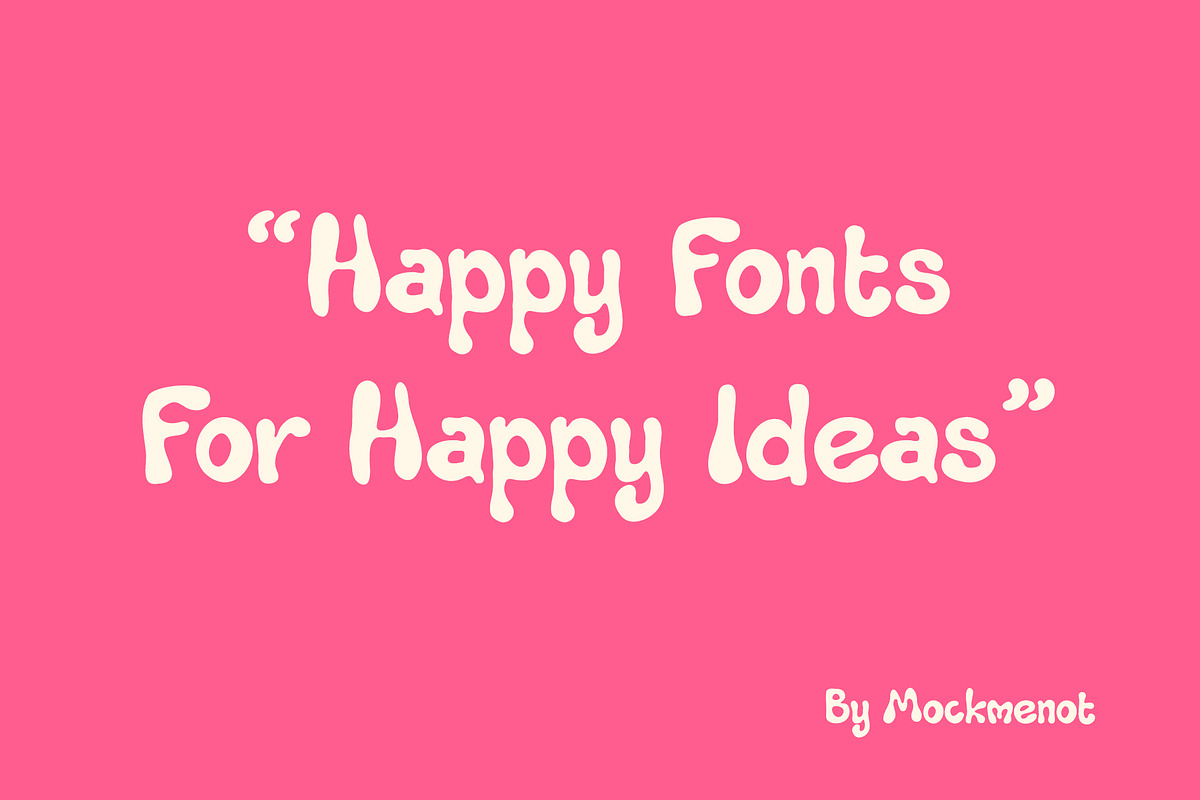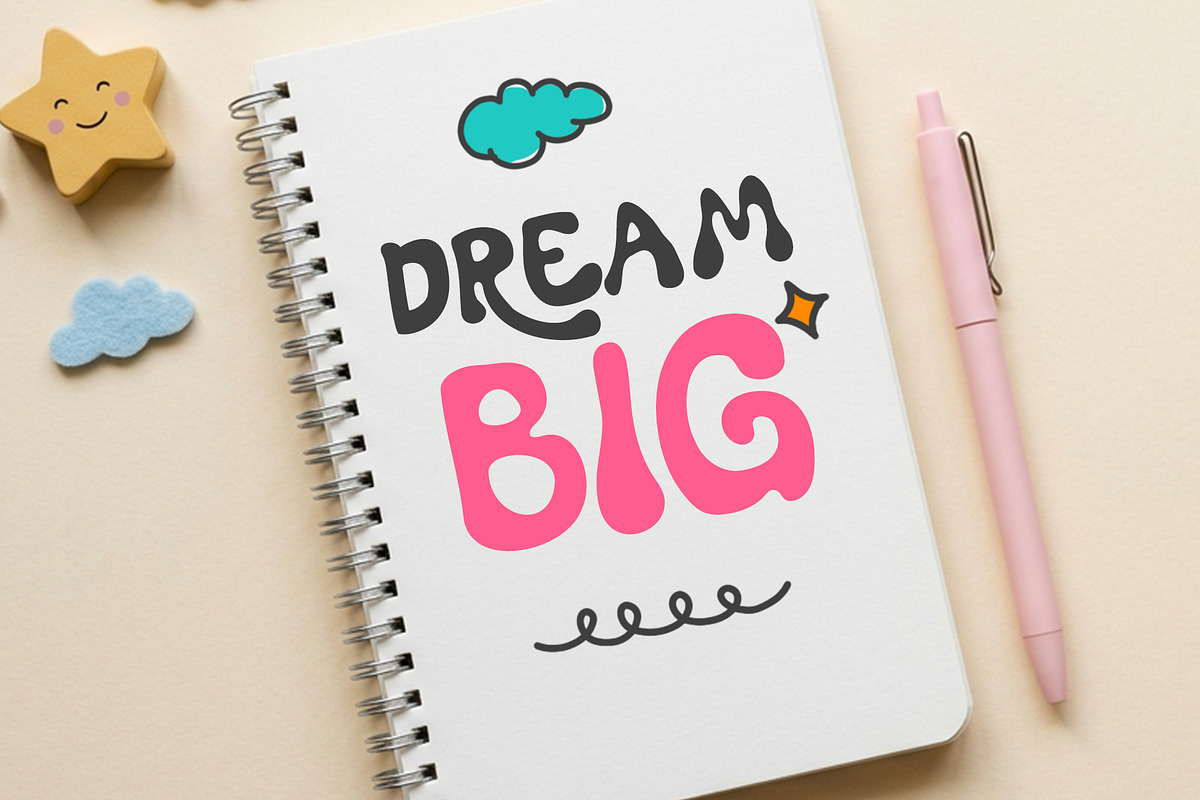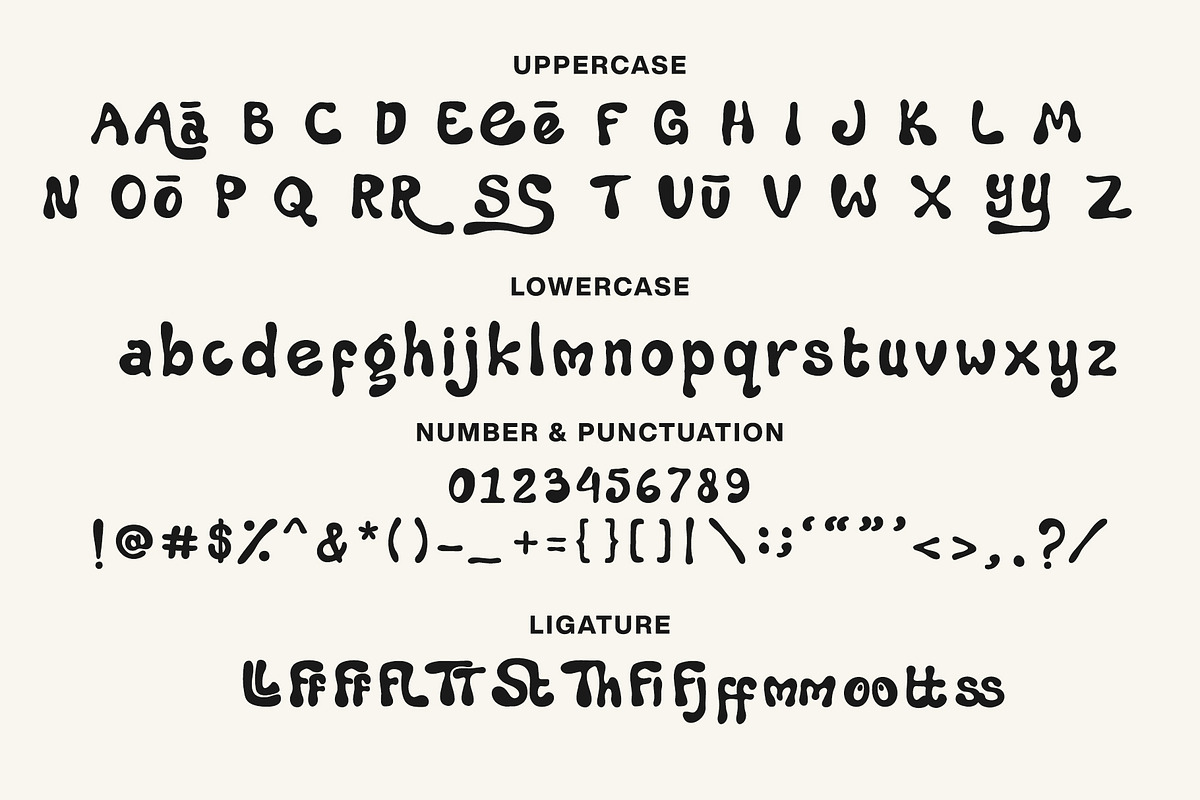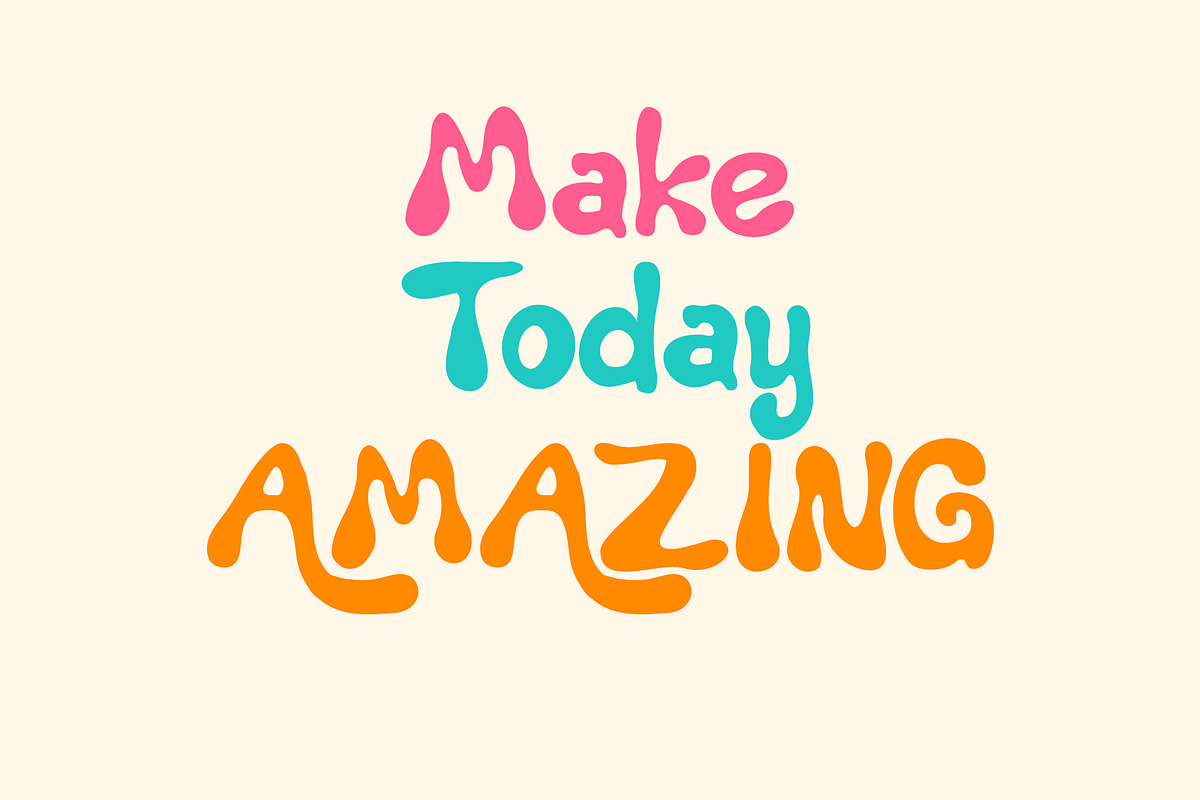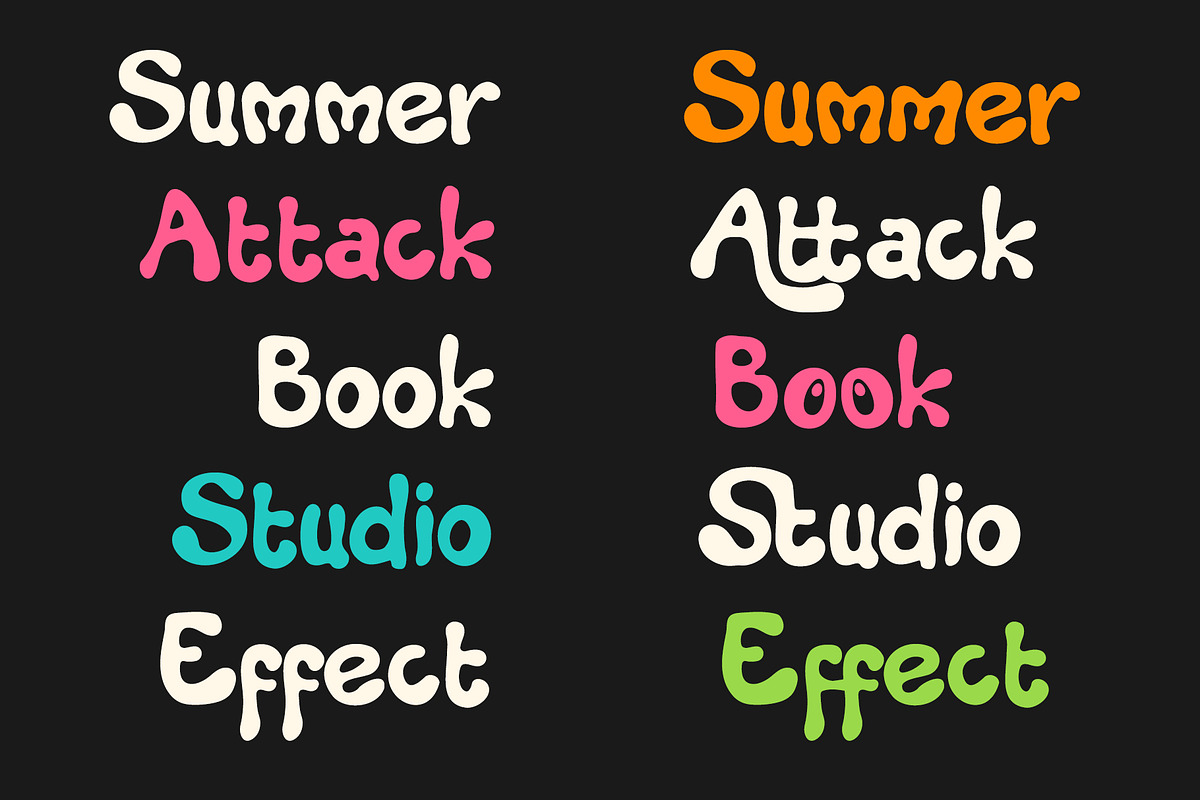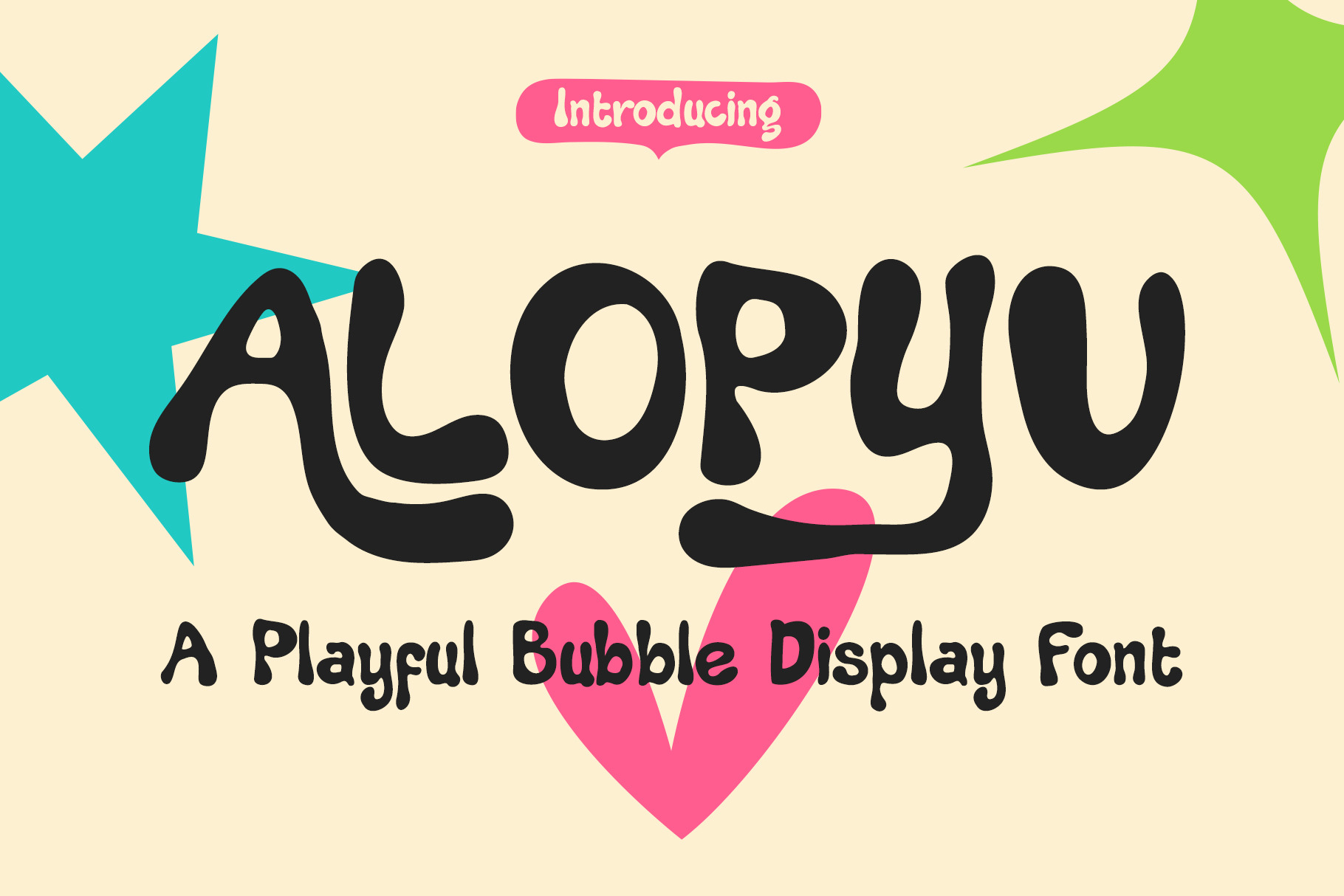
Alopyu - Bubble Fun Display Font
Alopyu is a playful bubble font with a cute handmade feel and friendly personality. Designed to bring fun and joy to your creative projects, this font is perfect for kids branding, stickers, posters, packaging, social media, classroom materials, and more.
Whether you're creating cheerful designs or playful products, Alopyu adds a charming touch that makes every project stand out.
Uppercase & Lowercase Letters